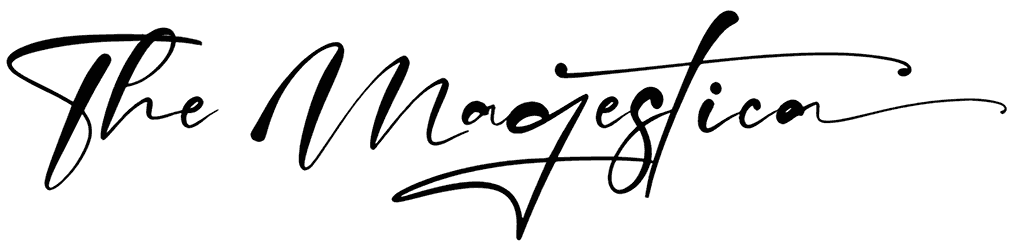
The Magestica Font
The Magestica has a classic elegance with a big, tactile flourish that can make any broken text pop. The curves and twists of this handwritten font can look flawless on wedding cards, invitations, and any other fancy event.
As a result of its illegibility, this signature font is not suitable for body texts, but enhances your writing’s fantasy element. So, to create a particular personal space, add both styles of this script font to the collection by pressing a button.